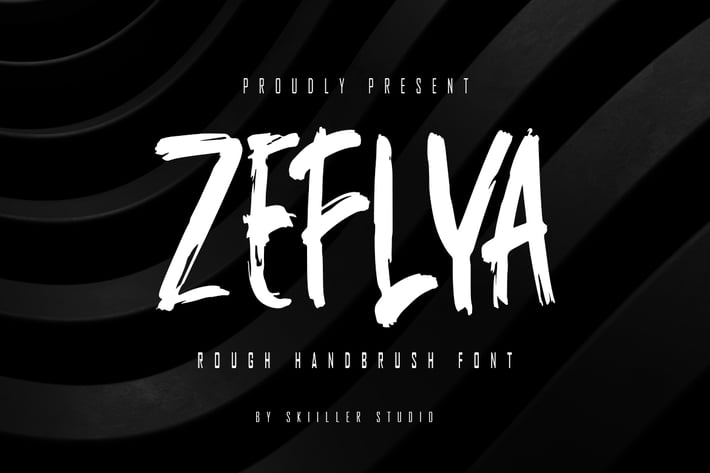
Zeflya - Rough Handbrush Font
Zeflya Font Brushee is a modern textured font. It is suitable for food posters, for logos, music covers, clothing, and many cool design projects.
+ Uppercase & Lowercase letters
+ Numbering and Punctuations
+ Multilingual Support
+ Basic Latin Language Support (AÀÁÂÃÄÅCÇDÐEÈÉÊËIÌÍÎÏÑOØÒÓÔÕÖUÙÜÚÛWYÝŸÆß )